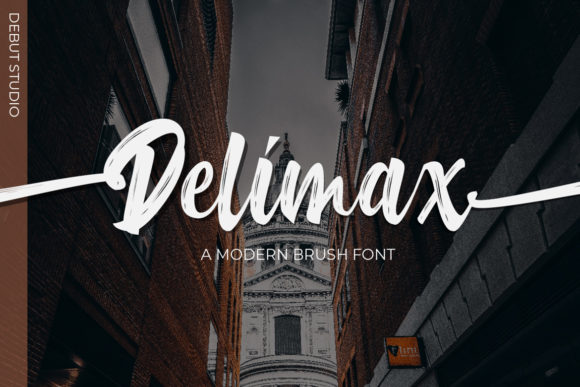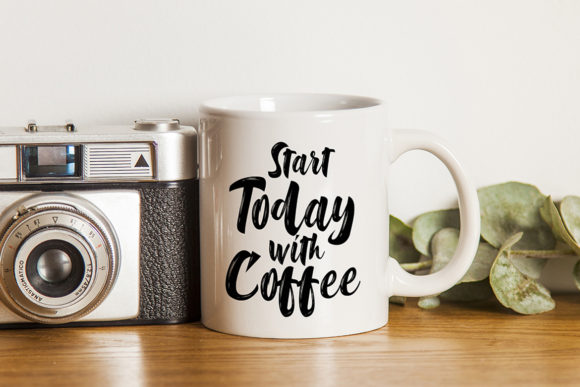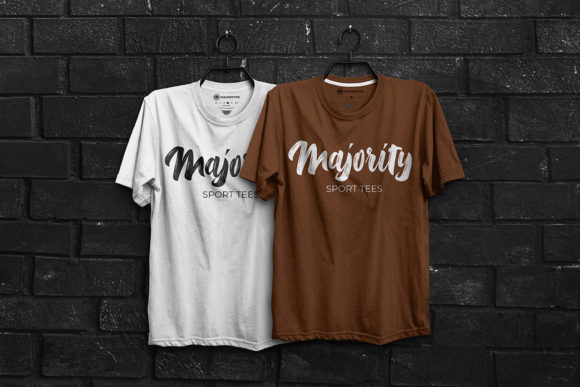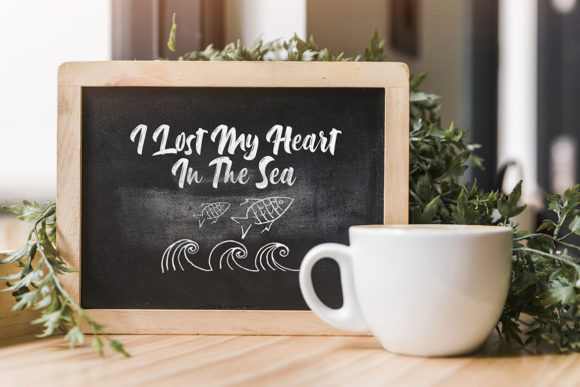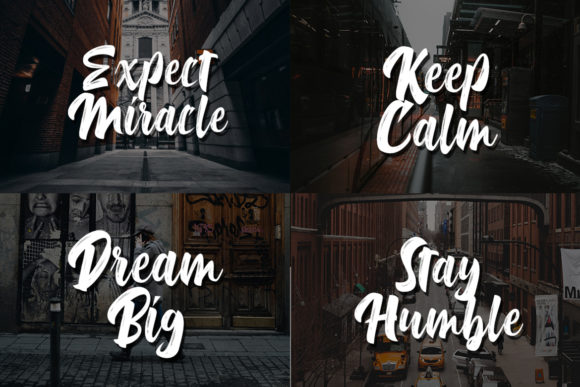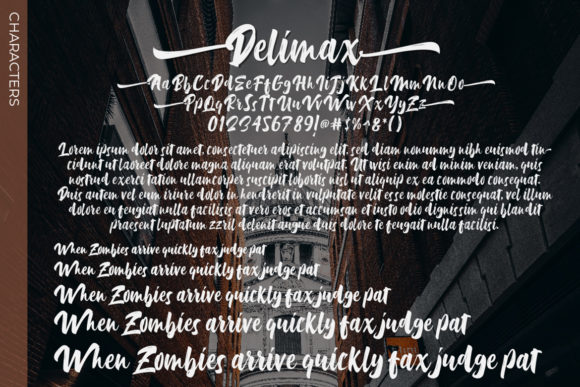
HomeScript FontsDelimax Font Script Fonts Delimax Font FacebookXPinterestWhatsApp Delimax Font Poster 2 Delimax Font Poster 3 Delimax Font Poster 4 Delimax Font Poster 5 Delimax Font Poster 6 About Delimax Font Delimax is a modern brush font with a unique twist. It will add an authentic feel to any design project! DOWNLOAD ON CREATIVE FABRICAThis font is sold and delivered by Creative Fabrica. Font Canyon may earn a commission if you buy through this link. People also explored Welcome Font Briberra Script Font Right Font Nostalgia Pharatha Font Mishella Font Blessing Font Angry Cat Mandala Monogram Font Lindsay Brown Font 400 0 TagsDelimax Font Previous articleSophiet FontNext articleMy Lady Font LEAVE A REPLY Cancel reply Comment: Please enter your comment! Name:* Please enter your name here Email:* You have entered an incorrect email address! Please enter your email address here Website: Save my name, email, and website in this browser for the next time I comment. Personal Use Free Sileighty Personal Use Free Read more about this font Mahisya Personal Use Free Read more about this font Rellista Script Personal Use Free Read more about this font Sushi Day Personal Use Free Read more about this font BLOG Exploring Font Trends Shaping Communication in the Digital Era Fonts, like all design elements, are subject to trends. They play a crucial role in communicating a brand's personality,... 5 Fonts That Will Dominate Design Trends in 2026 How to Cut Any Font on Cricut: Convert a Font to SVG (Free) Top 10 Handwritten Fonts That Elevate Your Designs